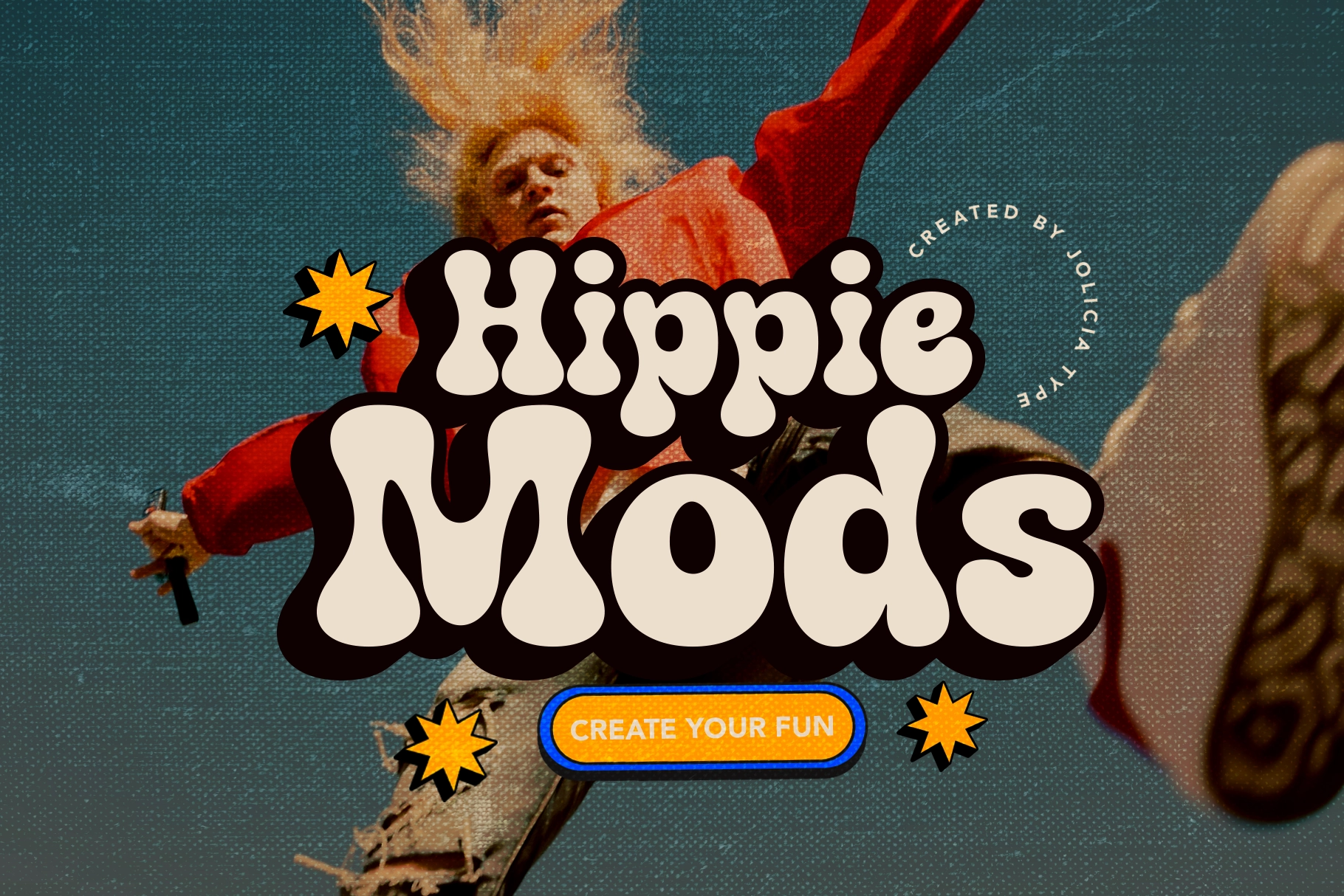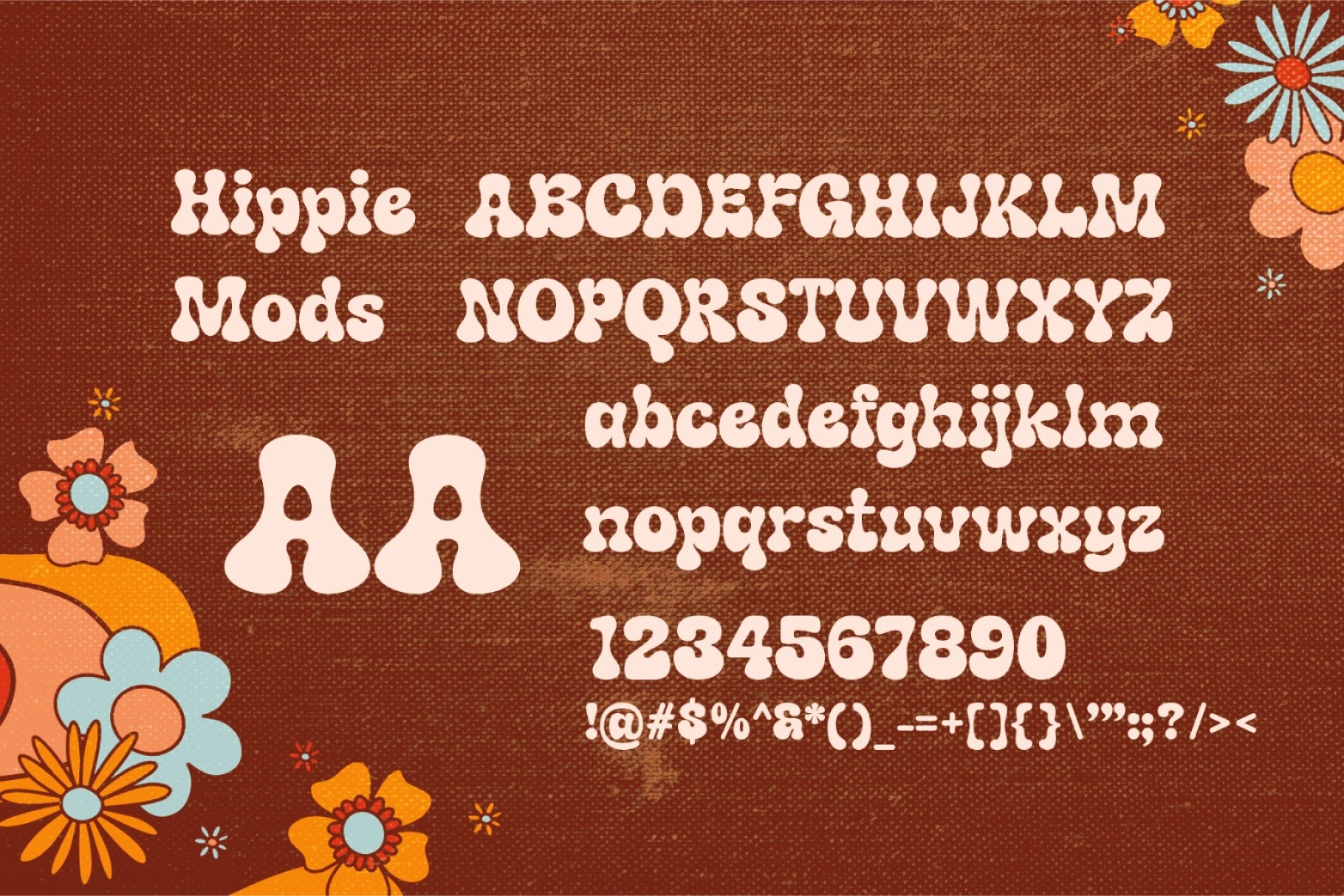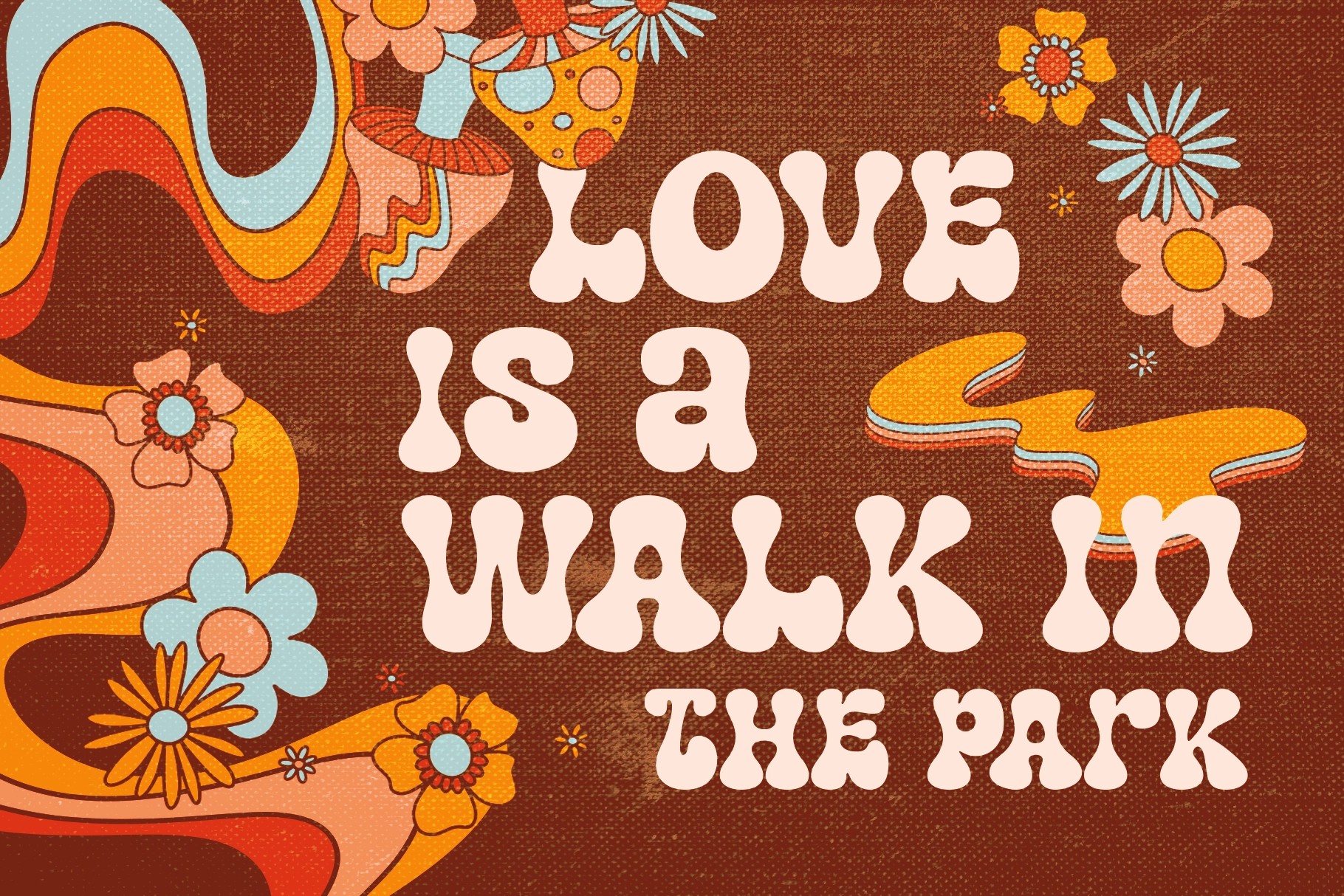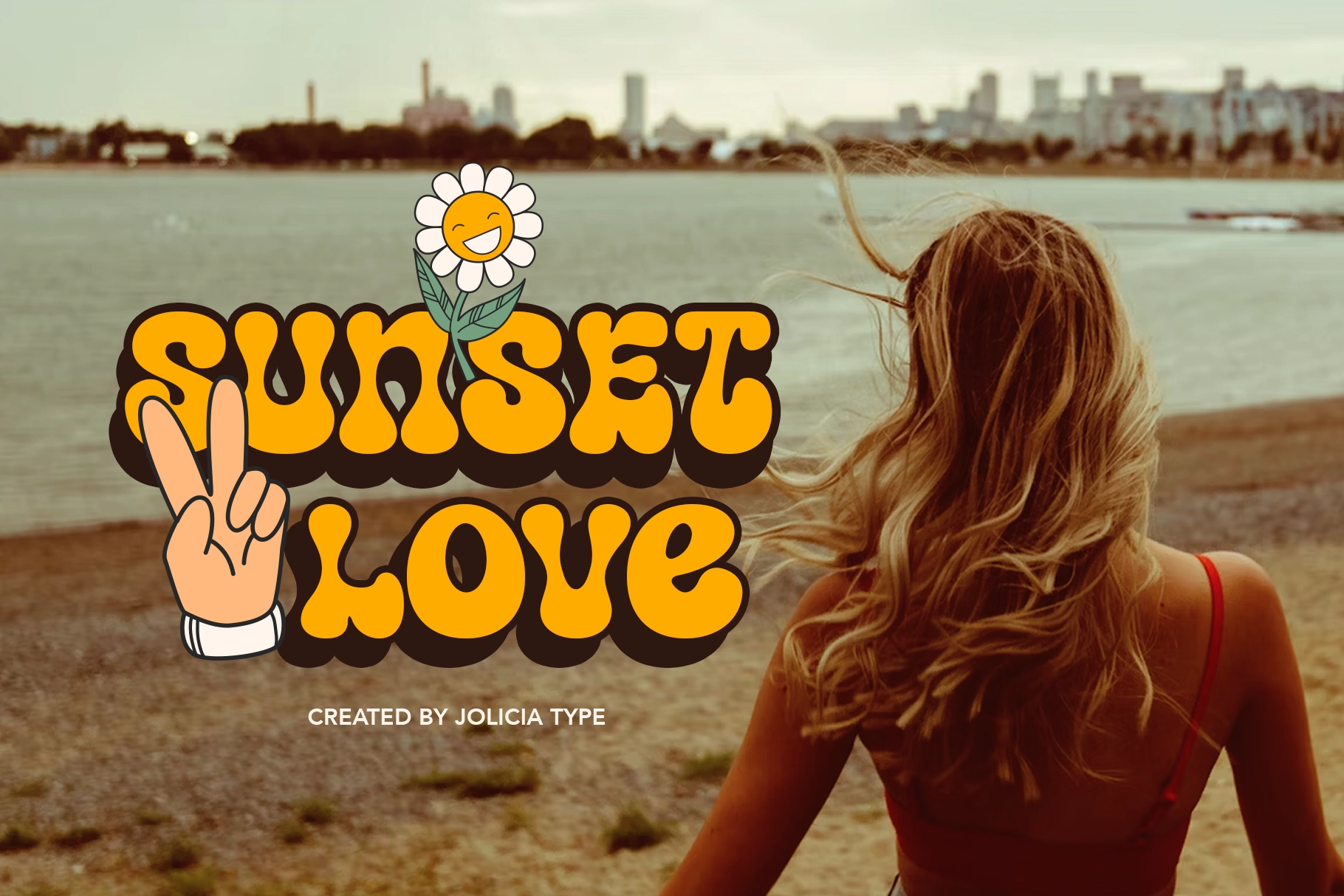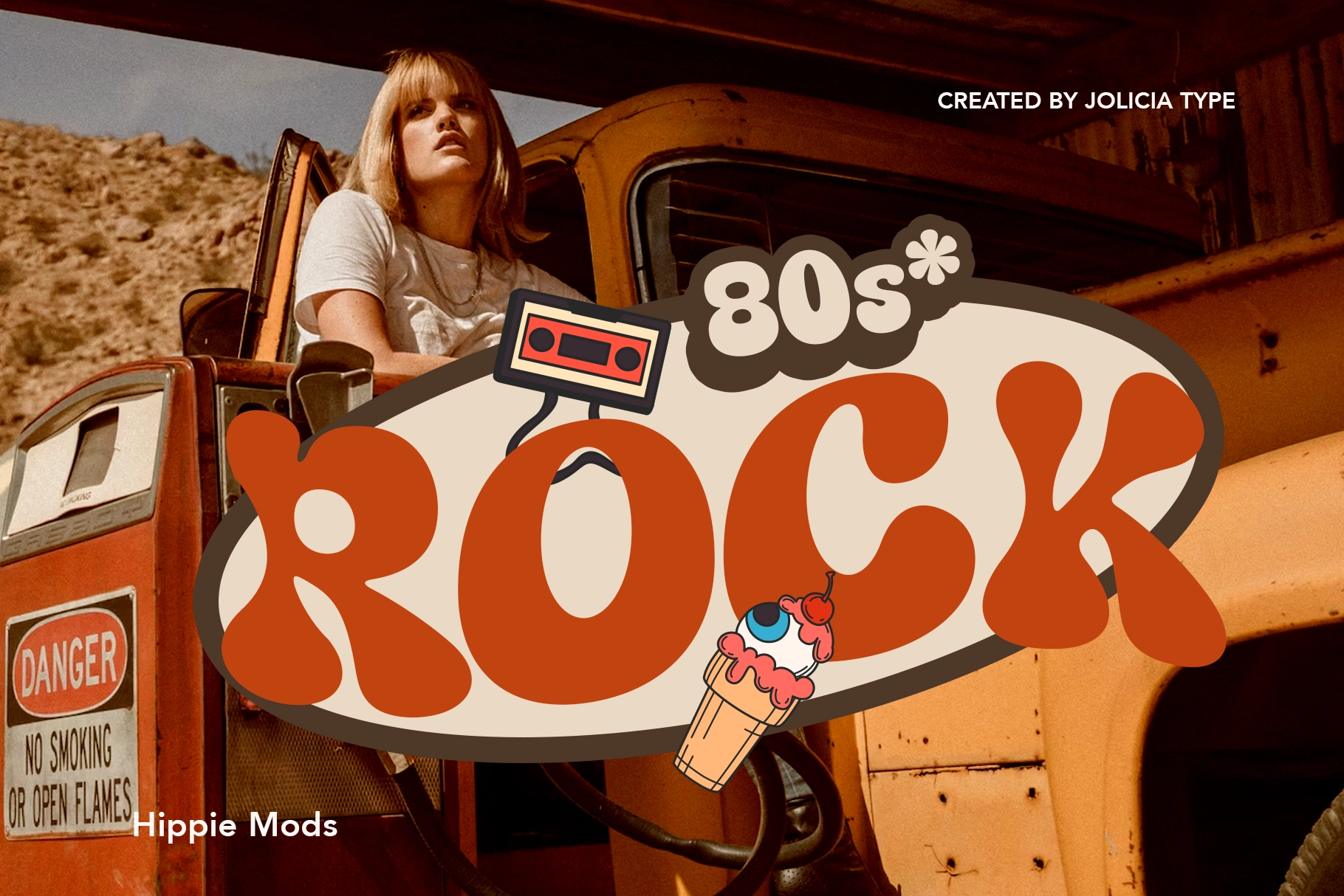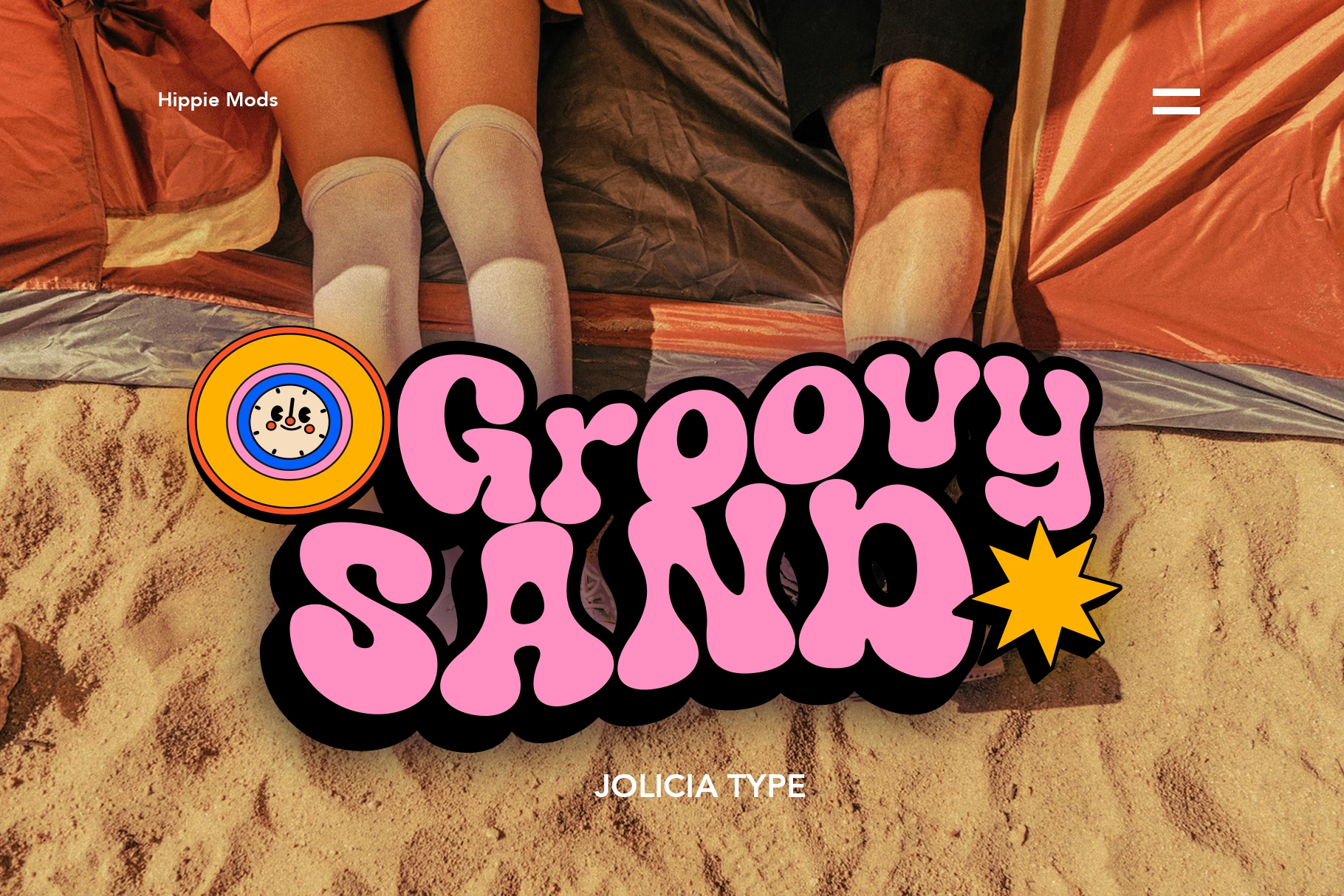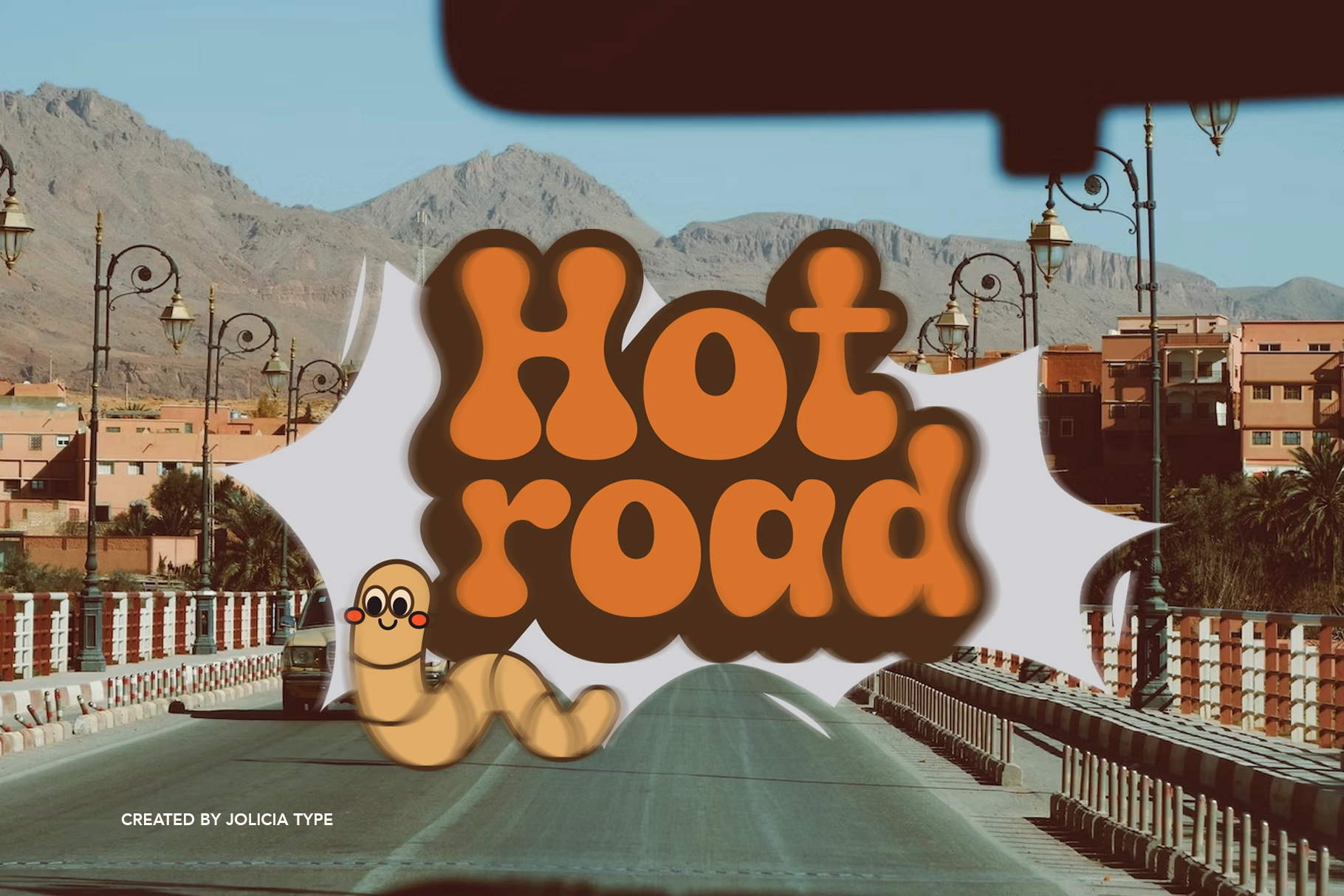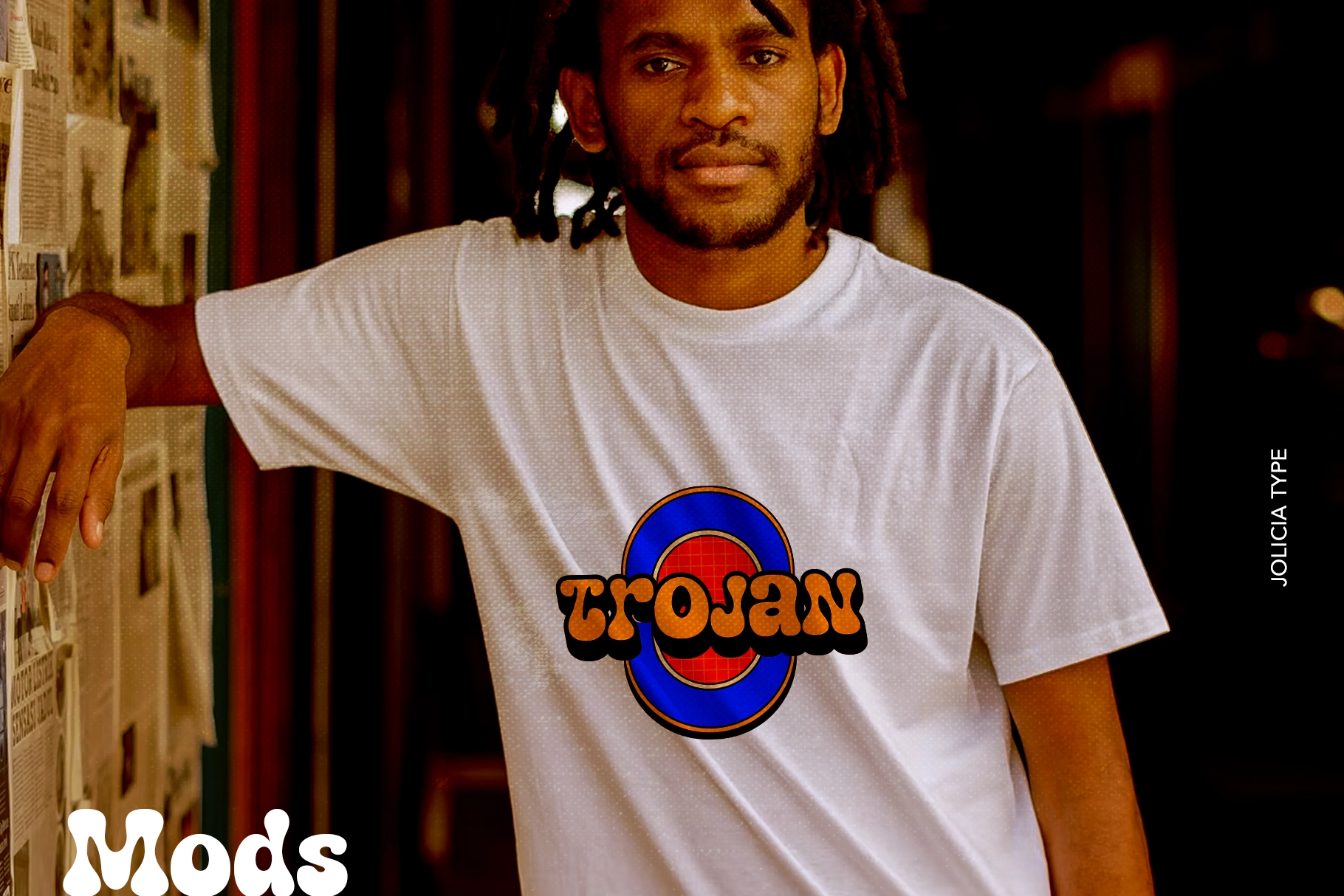
Hippie Mods - Groovy Retro Font
This retro display font has soft balloon shapes, chunky letterforms, and a sunny 70s personality without turning into costume-party typography. Rounded terminals, wavy proportions, and bold curves give every word a loose, upbeat rhythm — the kind that looks right on a record sleeve, a festival poster, or a snack label with questionable nutritional confidence.
Hippie Mods works best for expressive headlines and short phrases that need color, character, and instant recognition. Use it for music posters, album artwork, vintage-inspired branding, merch graphics, packaging, café menus, social media quotes, event flyers, stickers, kids’ projects, editorial titles, and more.
• Uppercase & lowercase characters
• Numbers & punctuation
• Unique groovy letterforms